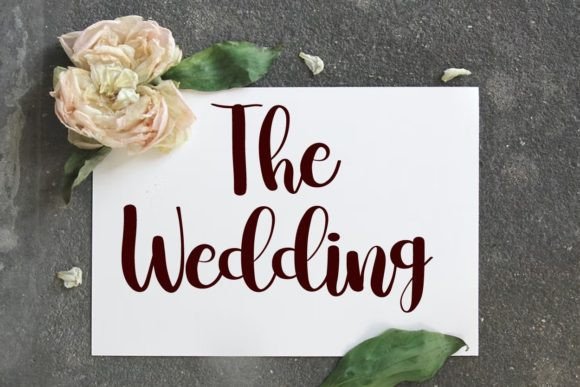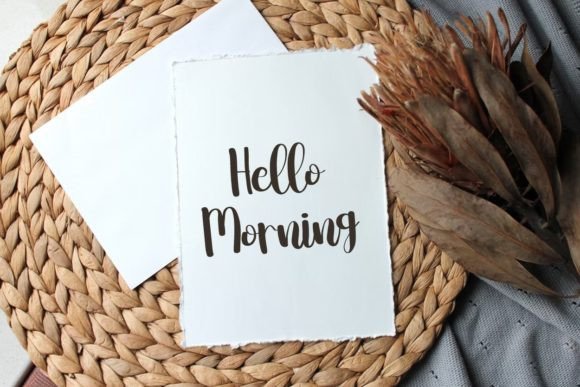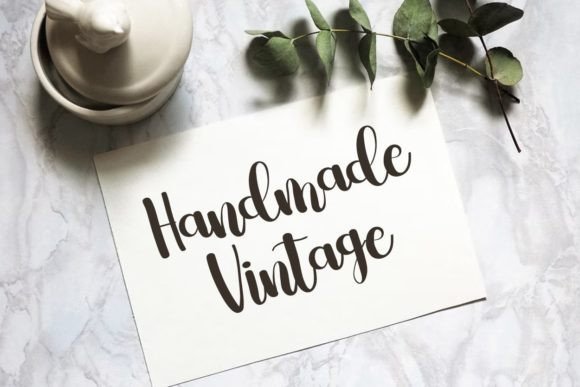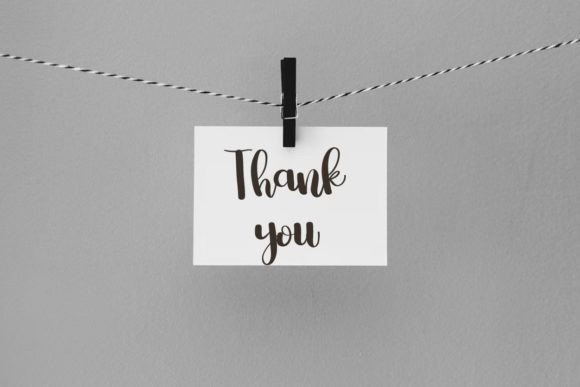
Apple Font
About Apple Font
“Apple” is a fresh and beautiful font that serves as a versatile tool for various design purposes. Whether you’re working on YouTube banners, cover logo mockups, wedding invitations, ID cards, flyers, or crafts, this font brings a touch of freshness and uniqueness to your projects.
The simplicity and uniqueness of “Apple” make it an excellent choice for a wide range of design applications. Its clean lines and distinctive characters contribute to a modern and contemporary aesthetic, ensuring that your designs stand out with a sense of clarity and style.
For YouTube banners, “Apple” becomes a valuable asset in creating visually appealing and engaging content. Its fresh and modern look adds a professional touch to your banners, making them visually impactful and inviting to your audience.
In the realm of logo mockups, “Apple” contributes to a clean and sophisticated presentation. The font’s simplicity allows your logo designs to take center stage, while its fresh and beautiful characteristics enhance the overall visual appeal.
Wedding invitations gain an elegant and modern touch with the use of “Apple.” The font’s simplicity ensures readability, while its fresh design adds a contemporary and stylish element to your invitation designs, making them suitable for a range of wedding themes.
When it comes to ID cards, “Apple” offers a balance between professionalism and aesthetics. Its clean and unique appearance makes text easily legible, contributing to the overall clarity of your ID card designs.
In crafting projects, “Apple” adds a distinctive flair to your creations. Whether you’re working on DIY projects, scrapbooking, or any other craft-related endeavors, the font’s fresh and beautiful design enhances the visual appeal of your crafted items.
Ultimately, “Apple” is more than just a font; it’s a design companion that contributes to the progress and development of your business by providing a modern, clean, and unique visual identity. Its versatility makes it suitable for a variety of design contexts, ensuring that your projects reflect a sense of contemporary style and creativity.